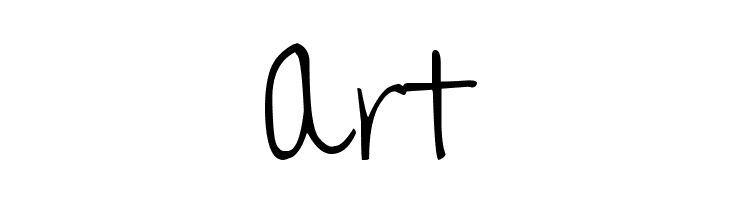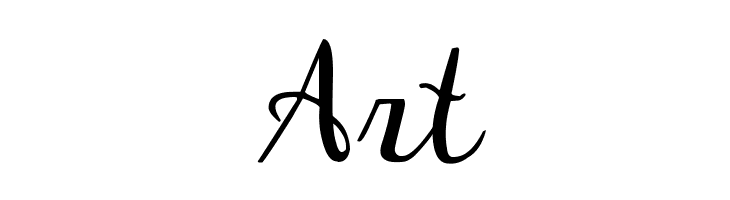
A playful, hand-drawn font with quirky, irregular characters.
A casual script font with fluid, handwritten strokes and a natural, elegant style.
A whimsical and decorative font with playful curls and swirls.
A playful and casual handwritten font with a whimsical and dynamic style.
A playful handwritten font with a casual and dynamic style.
A playful and whimsical script font with flowing, connected letters.